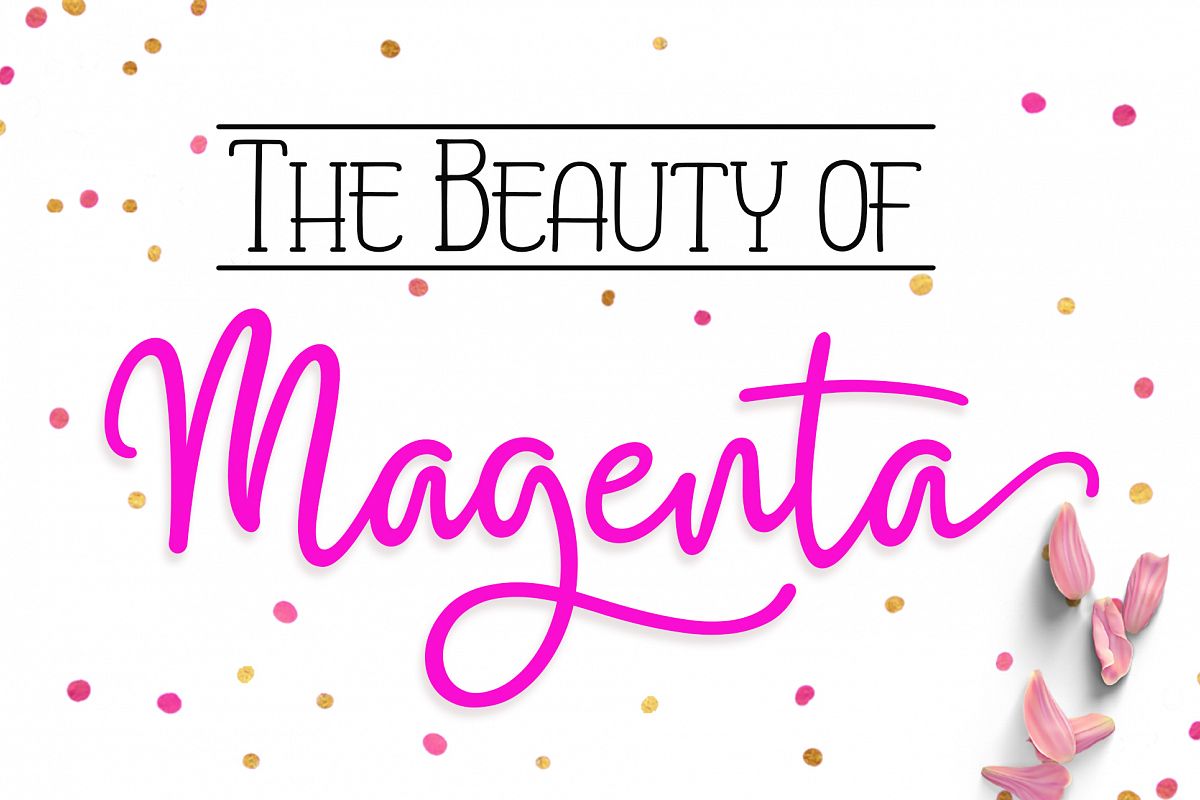
Magenta
Magenta Sans
Magenta is a interconnected font with beautiful welded letters. The font contains beautiful smooth and elegant letters and is great for creating cards such as wedding invitations and birthday cards but also can be used to create beautiful signs and decorate various items.This dynamic font comes with a sister font: Magenta Sans. Magenta Sans is a basic font with huge letters.Both fonts are compatible with Cricut Design Space and Silhouette Studio. The font is PUA encoded and can be used with Windows Character Map and Mac Font Book. Obviously the fonts also work with Adobe Photoshop, Illustrator, MS Word, Publisher and many other applications.Also supports in program, Adobe IllustratorCS, Adobe IllustratorCc, Adobe Photoshop, Adobe InDesign, Corel Draw X version, Microsoft WordFile include:
• Features Basic Latin A-Z and a-z Numbers Symbols.